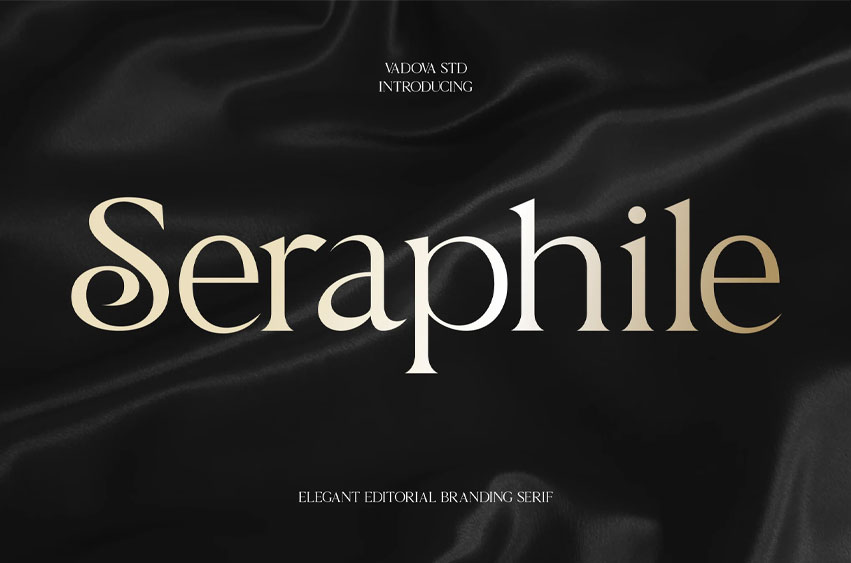
Seraphile Font
Seraphile Font is a luxurious serif typeface designed to elevate branding and packaging with refined elegance. Its graceful letterforms, clean structure, and subtle flair make it ideal for upscale logos, jewelry packaging, fashion labels, and premium editorial spreads. Seraphile balances timeless beauty with a contemporary feel, offering designers a versatile font for sophisticated identities and minimalist visual storytelling.
Suitable For: Luxury branding, fashion logo, jewelry packaging, premium labels, editorial layout, classy invites, boutique identity, perfume design, modern minimalism, upscale signage, elegant typography, visual identity, gift box branding, fashion editorial, soft aesthetic, product cards, cosmetics packaging, stylish design, brand collateral, minimalist posters.